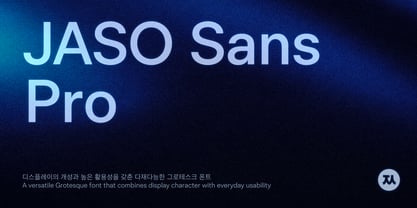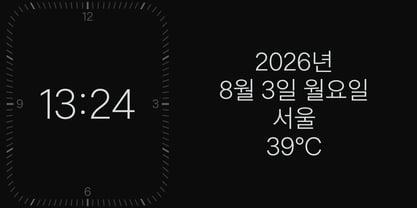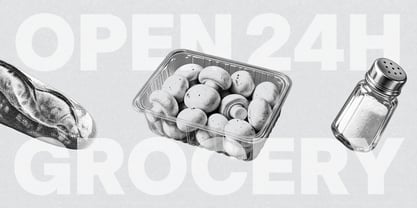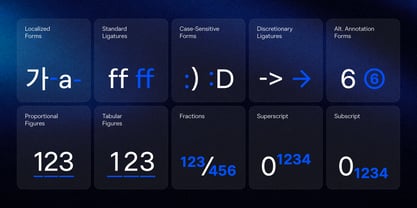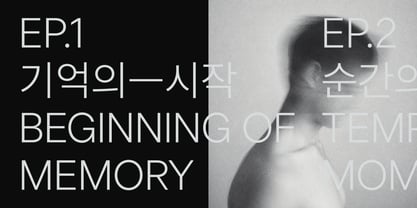
JASO Sans Pro
The JASO Sans Pro Font Family was designed by StudioJASO and published by StudioJASO. JASO Sans Pro contains 10 styles and family package options. More about this family
JASO Sans Pro is an enhanced and expanded version of JASO Sans, with its Hangul character set refined and extended. It is a versatile grotesque typeface that combines the distinctive character of a display typeface with a high degree of usability.
The curvature of the Hangul consonants has been adjusted to a more conventional level, giving JASO Sans Pro a more neutral impression than the original JASO Sans. At the same time, it retains the original characteristic of short vowel lengths, which gives the overall silhouette a square, block-like appearance. As a result, it retains a subtle sense of cheerfulness rather than becoming completely neutral, while also creating a clean, well-aligned impression when combining Hangul with Latin characters or placing Hangul within a frame.
In addition, approximately 8,000 glyphs have been added to each weight, allowing JASO Sans Pro to support all 11,172 precomposed Hangul syllables.
Independent typeface designer active in South Korea. Interested and focused on the harmonization of Latin and Korean alphabet (or Hangul) fonts.His fonts have extensive language support covering Latin and Hangul. and Each font includes: 2,000 to 3,000 Hangul syllables, the smallest unit for expressing modern Korean; Latin Basic; punctuation; symbols for Korean codepage.